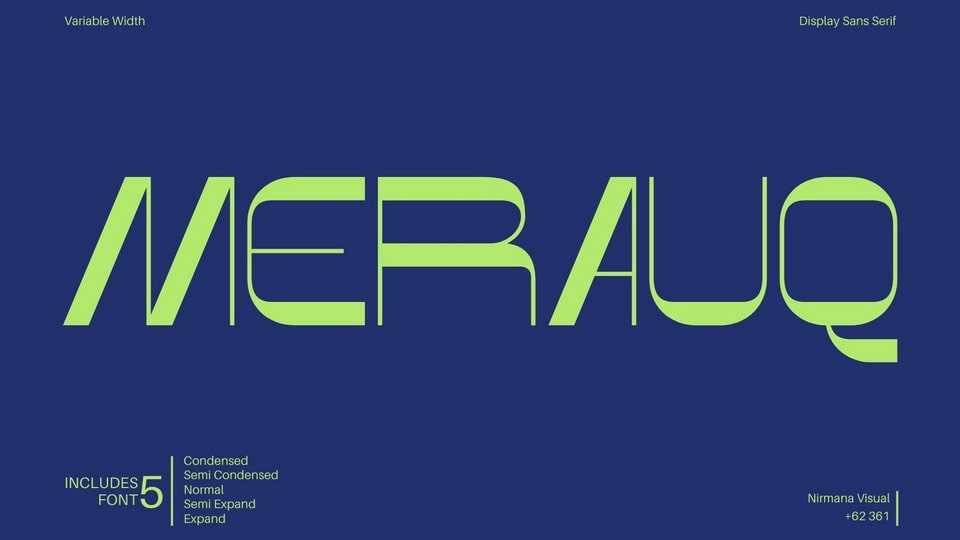
Download Merauq font, a modern high contrast display typeface that offers beautiful typographic harmony for a diversity of design projects. Perfect to add confidently to any projects, including logos and branding, social media, ads and editorial.